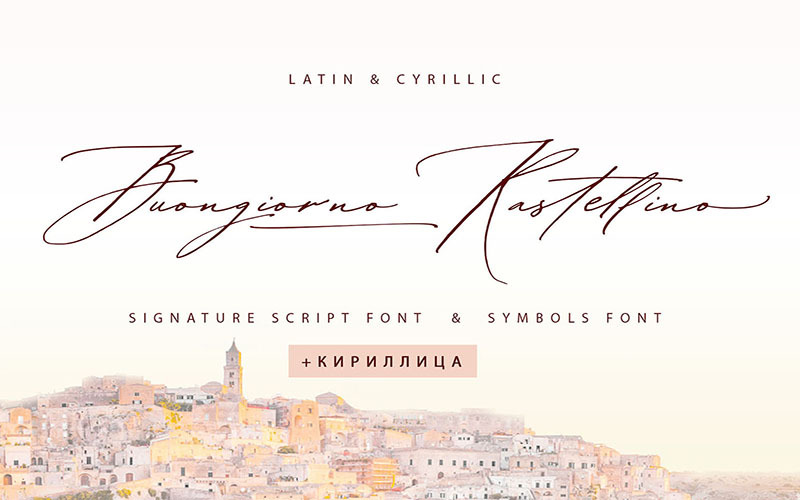
Buongiorno Rastellino Cyrillic + Extras Font
Buongiorno Rastellino Script font is perfect for branding, logos, wedding stationery, social media, packaging, and other projects that require an elegant touch.
Buongiorno Rastellino Script font contains the Cyrillic glyphs too.
Buongiorno Rastellino script contains a full set of uppercase letters and 3 full sets of lowercase letters, (standard, initial and final form). To make a needed form just type a letter with a number (such as a1, b1, c1...) and 46 ligatures - which can be used to create a handwritten calligraphy look.
The Cyrillic part of the font contains the uppercase letters and 3 full sets of lowercase letters, (standard, initial and final form). To make a needed form just type a letter with a number such as a1, б1, в1... After that select the word and apply the Open Type Features in programmes such as Adobe Illustrator, Photoshop, and others)
Buongiorno Rastellino Symbols is a font with over 52 hand-drawn elements, illustrations, and swashes that can help you to make your design unique and matchless. Combine and merge swashes and illustrations to create your own designs and make borders, frames, dividers, logos, and more (just use A-Z , a-z and 0-9 keys in the included Buongiorno Rastellino Symbols font). A different symbol is assigned to each uppercase or lowercase standard character, so you do not need graphics software, just type the letter you need.